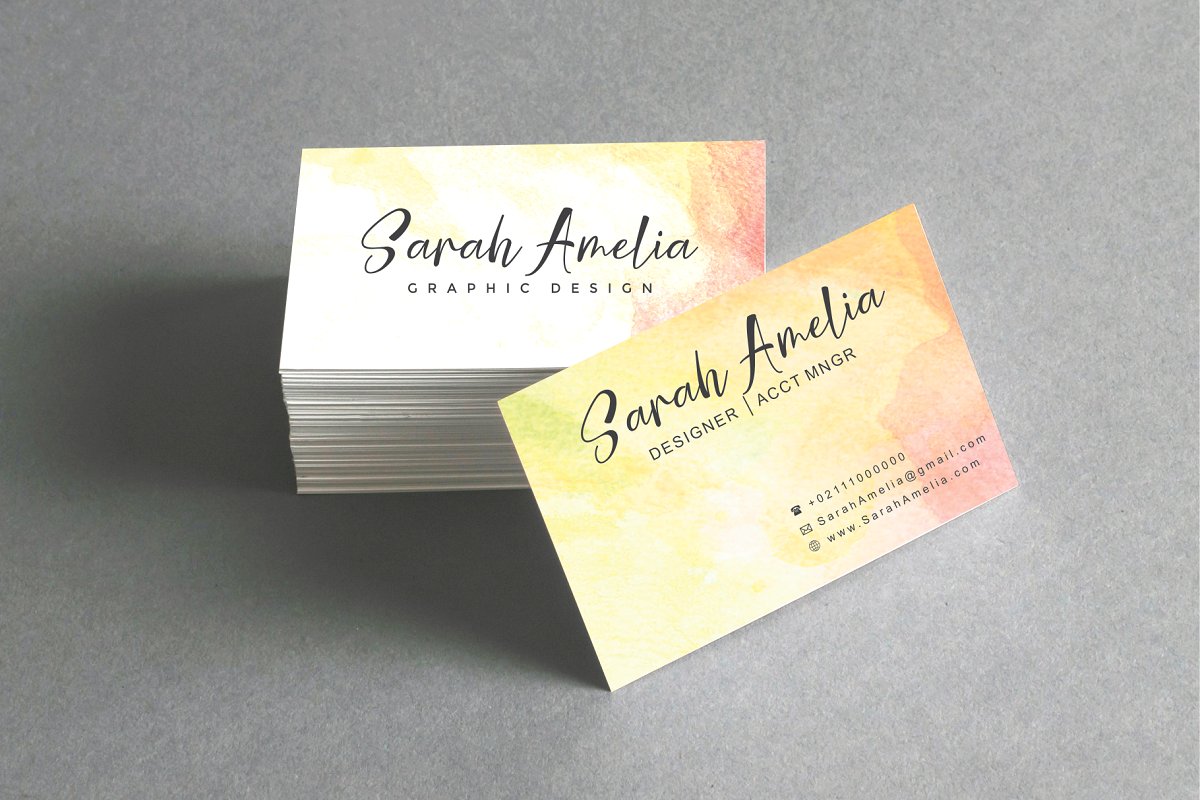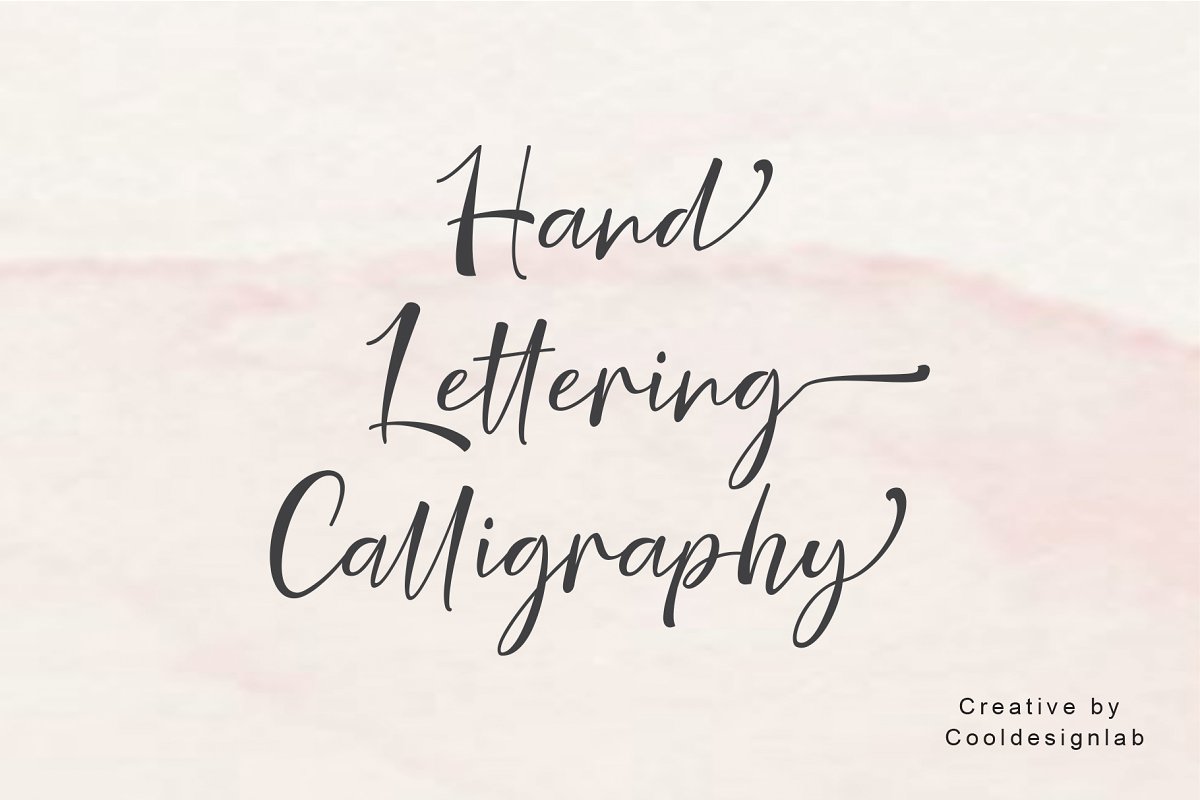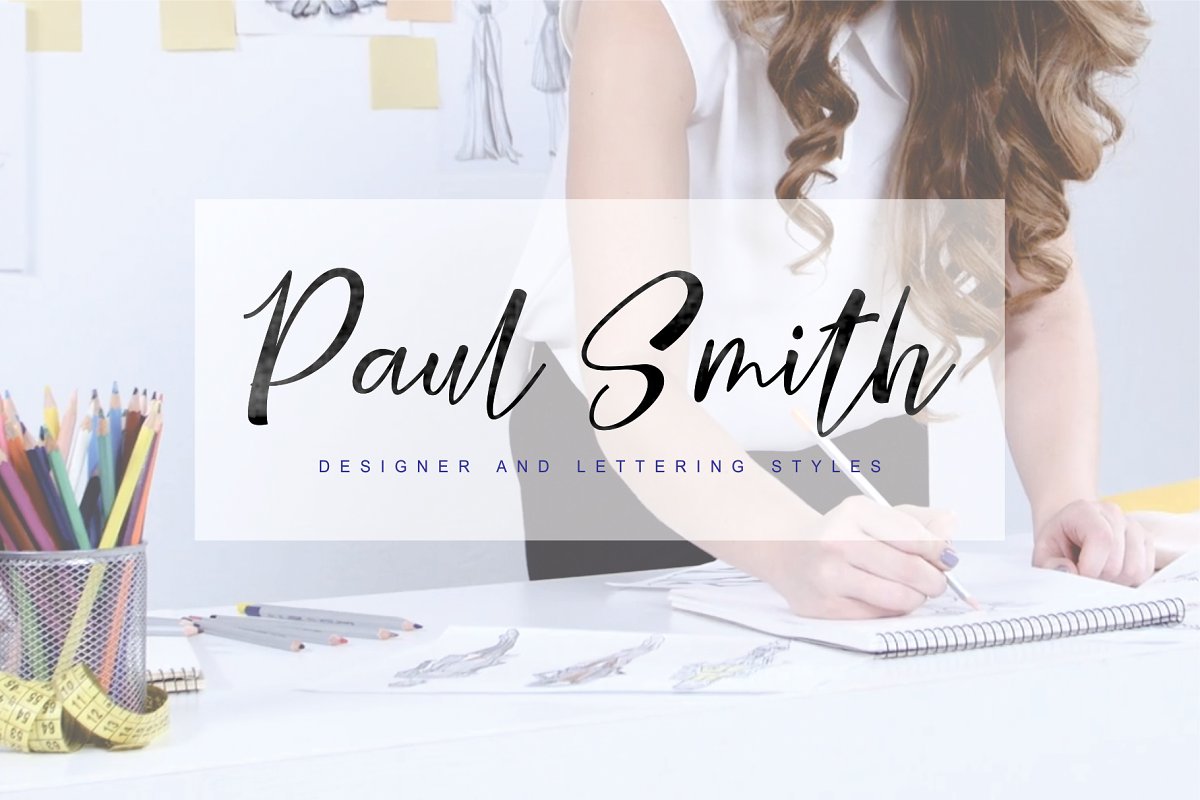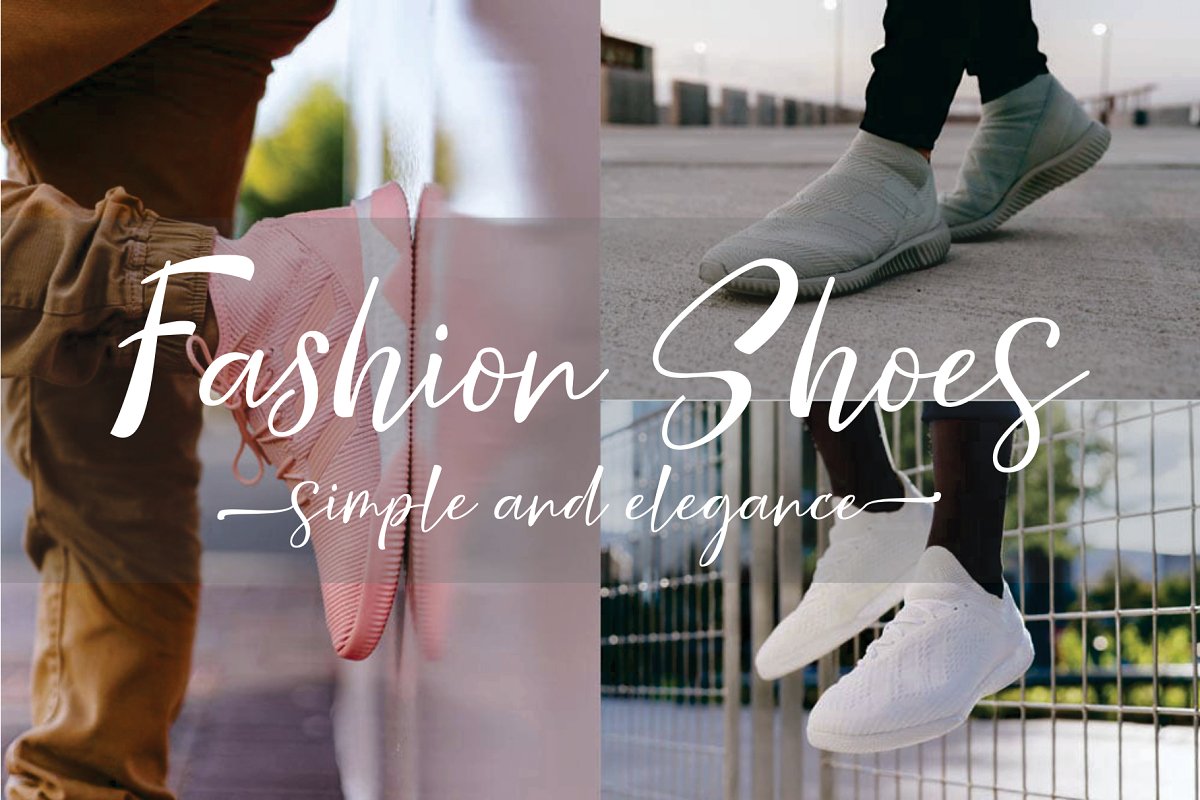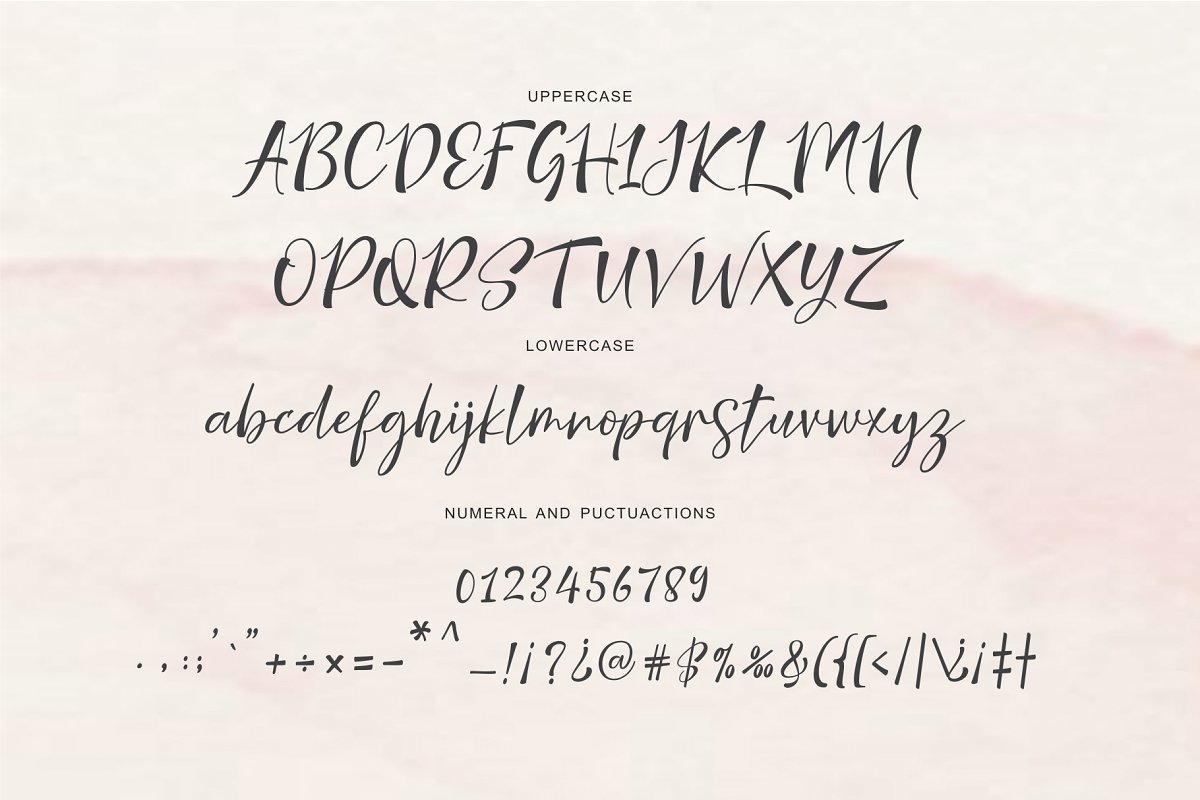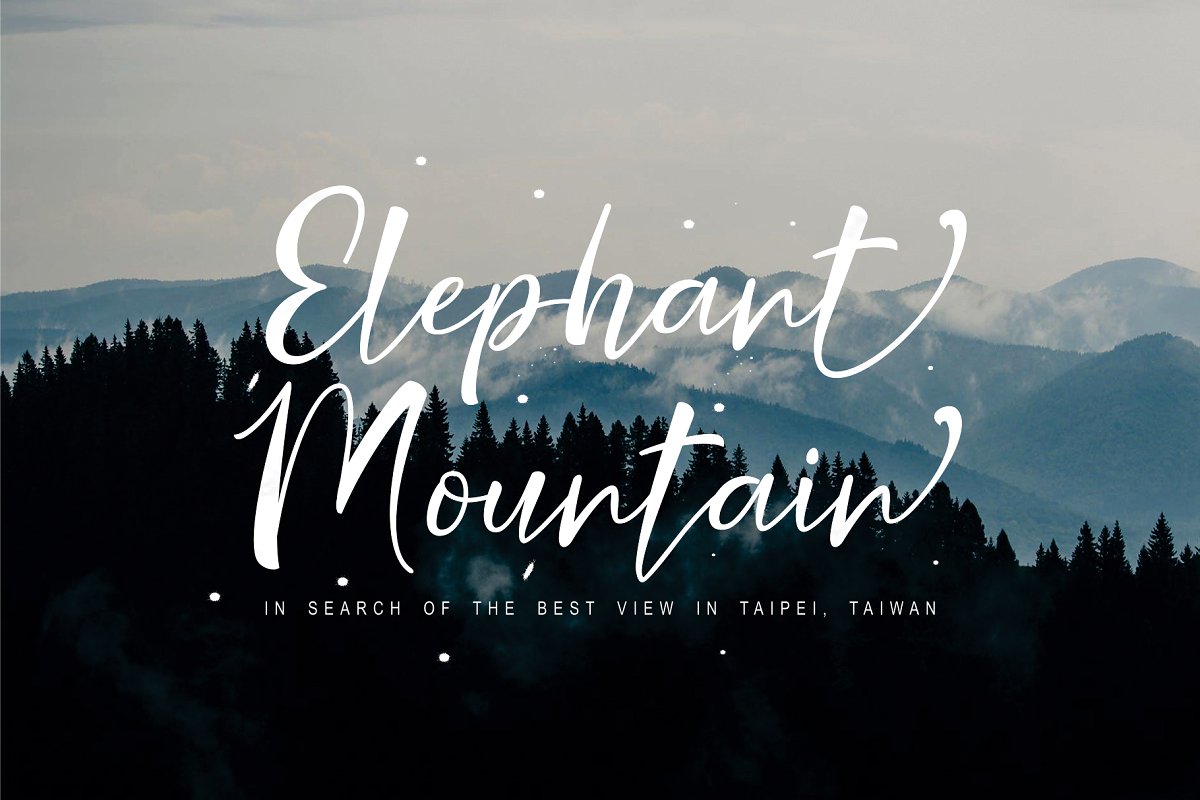
Nicolette Script Free Demo
Nicolette Script Free Demo is a handwritten script font that is given a modern touch and front and back swashes. This font can be useful for various design purposes. Suitable for Branding, Happy New Year, Logos, Greeting Cards, Stationery, Weddings and Offers. Such as titles, signatures, wedding invitations, t-shirts, letterhead, signboards, labels, music titles, news, posters, badges etc.